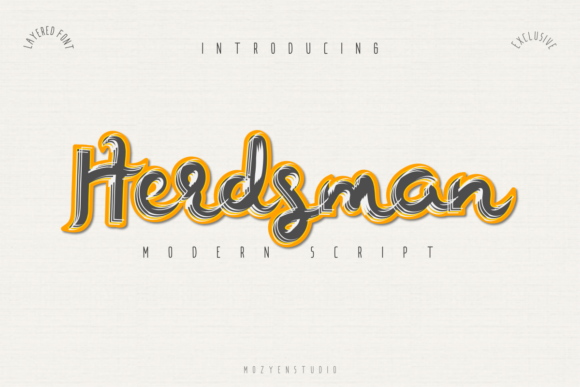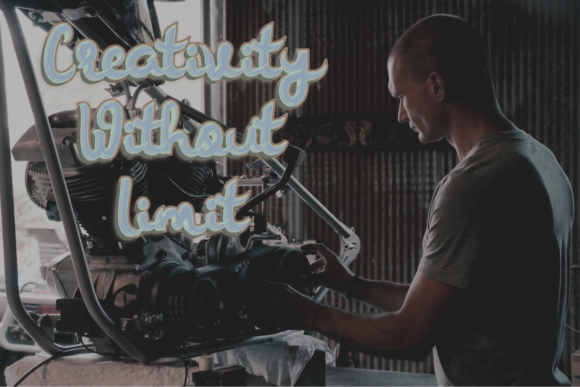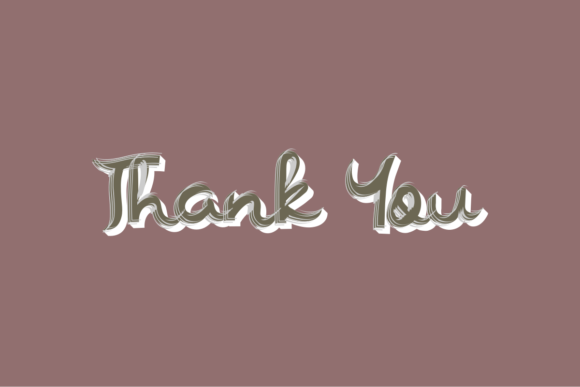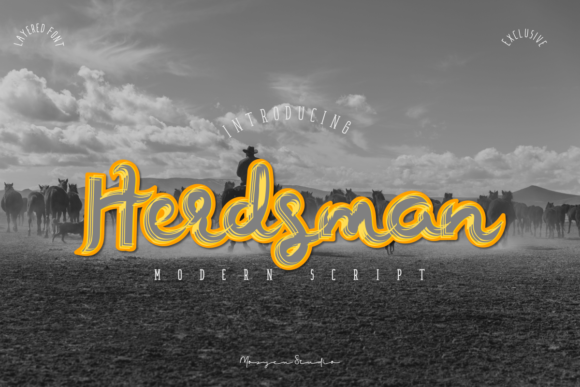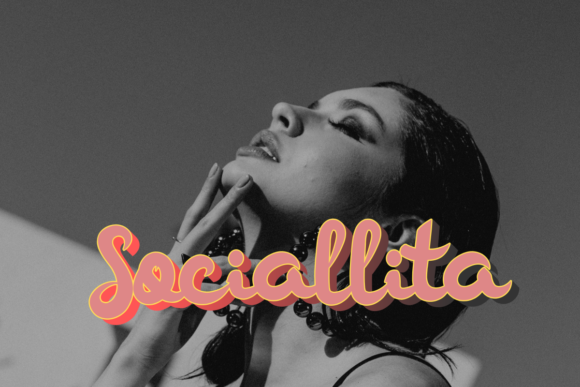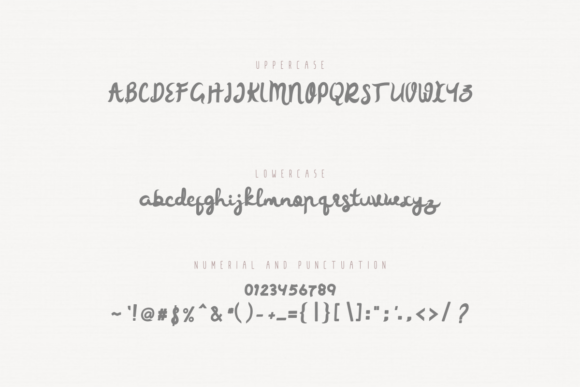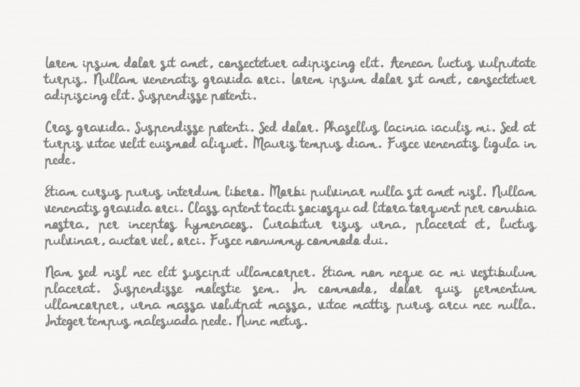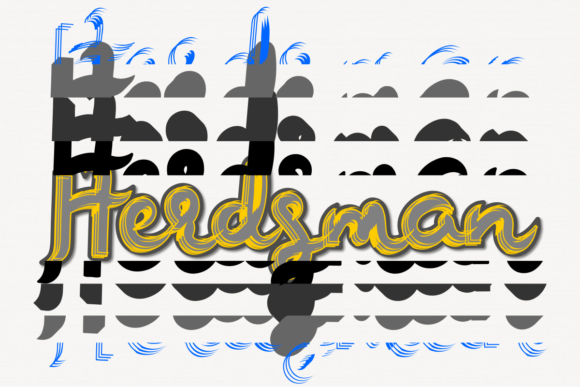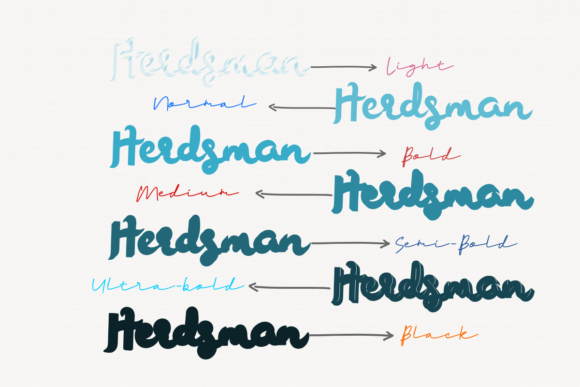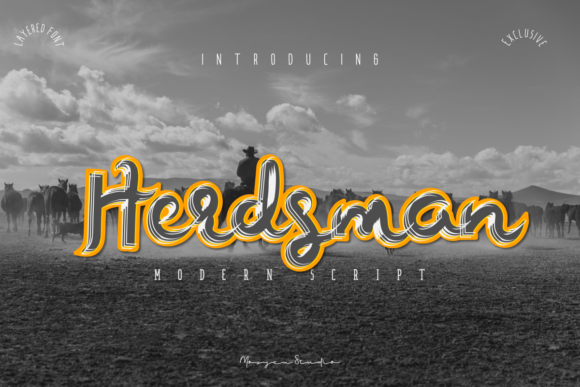
Herdsman Font
About Herdsman Font
Herdsman is a modern script font. It’s perfect for logos, branding, social media posts and will make your designs look extraordinary!